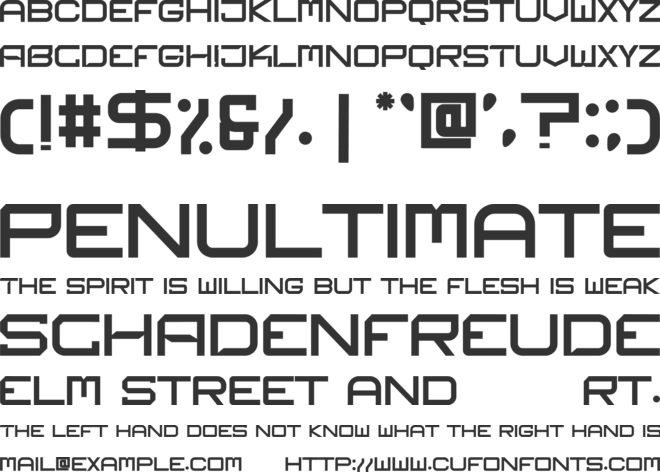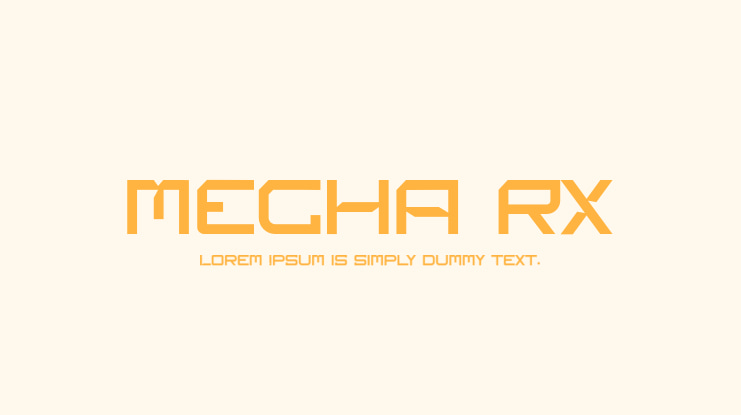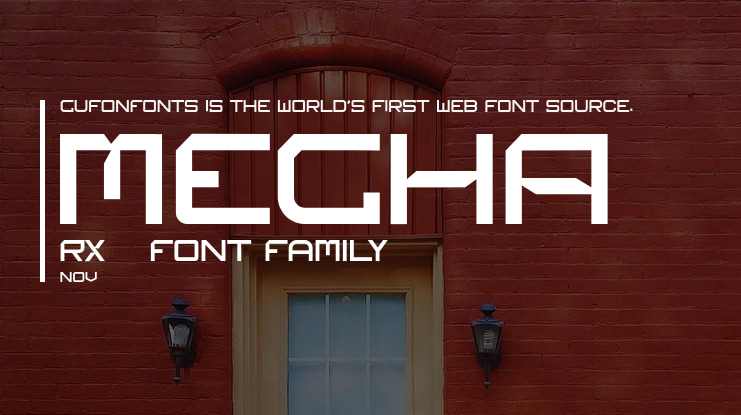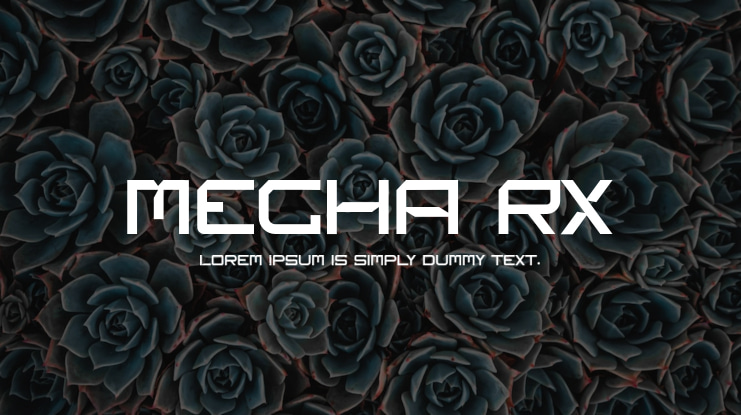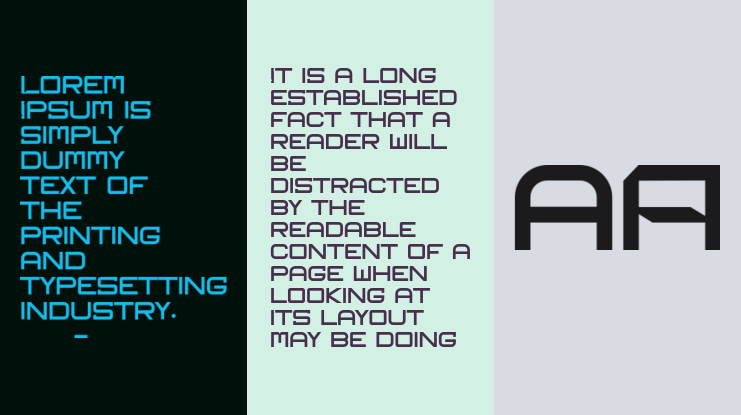
MECHA RX20 Font
The Mecha RX20 - Display Font is perfect for various design purposes such as logos, posters, sports, modern advertising design, product labels, t-shirts, YouTube thumbnails/covers, poster quotes, editorial design, book/cover titles, websites/blogs, social media posts, packaging designs, and many more.